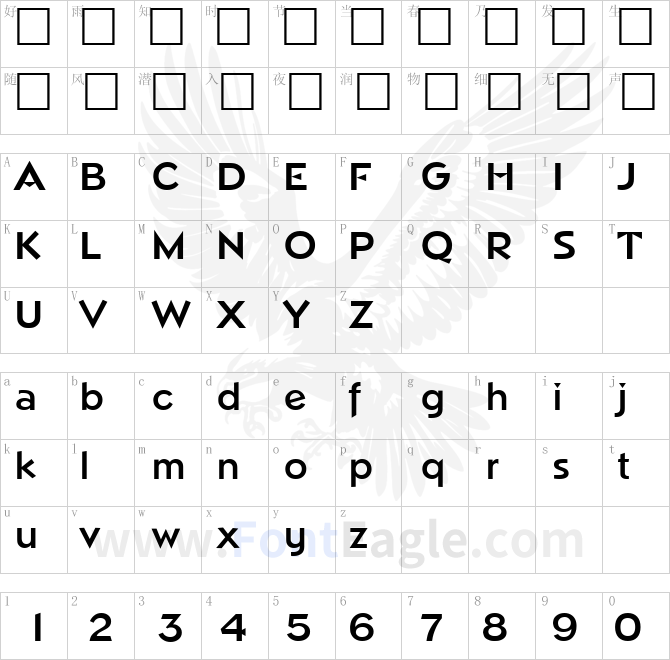
Napoli-Serial-Bold-DB is a great font, widely used in graphic design, single-page menu design, poster design and other fields, and is deeply loved by designers.Napoli-Serial-Bold-DB download.